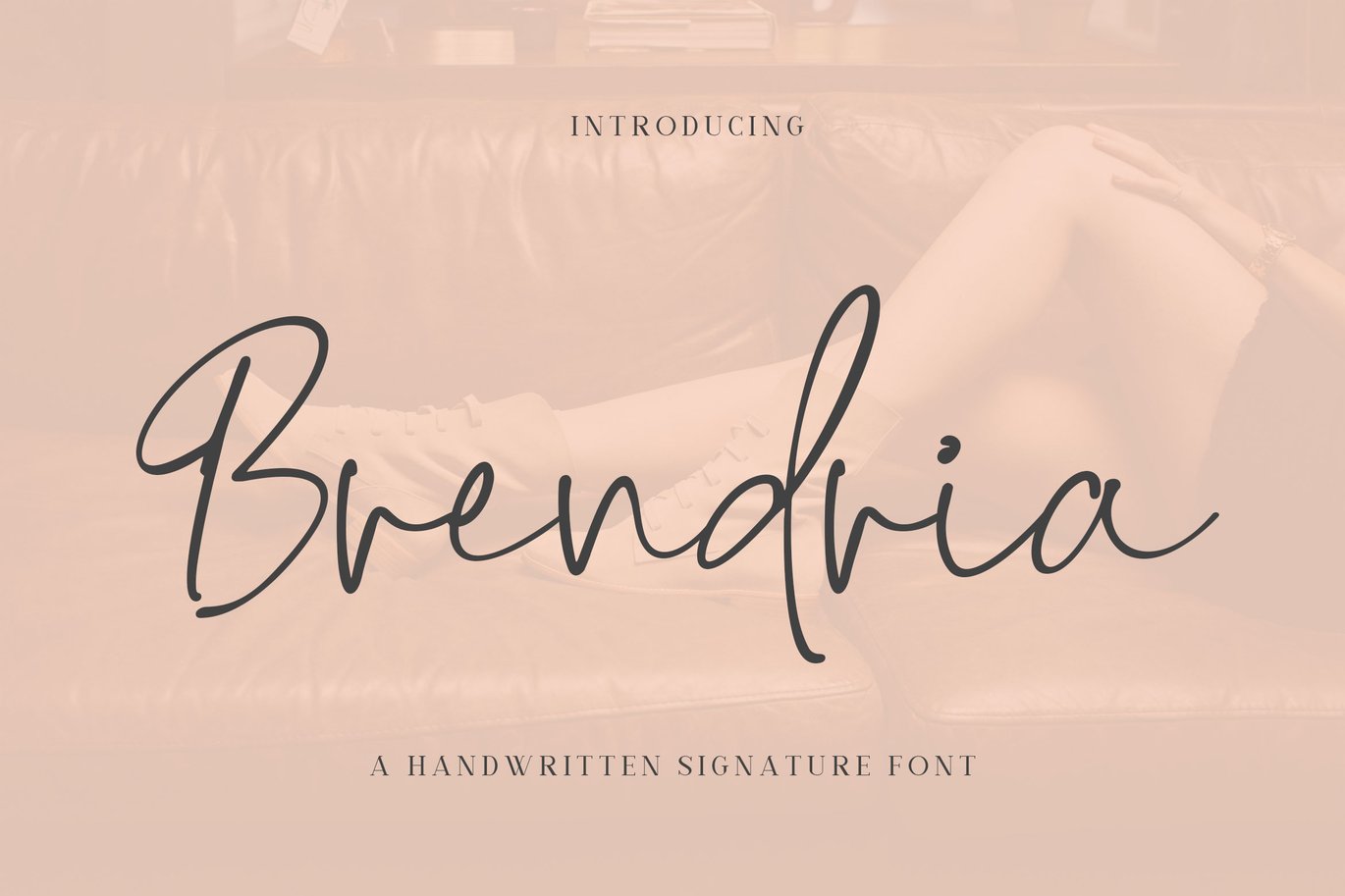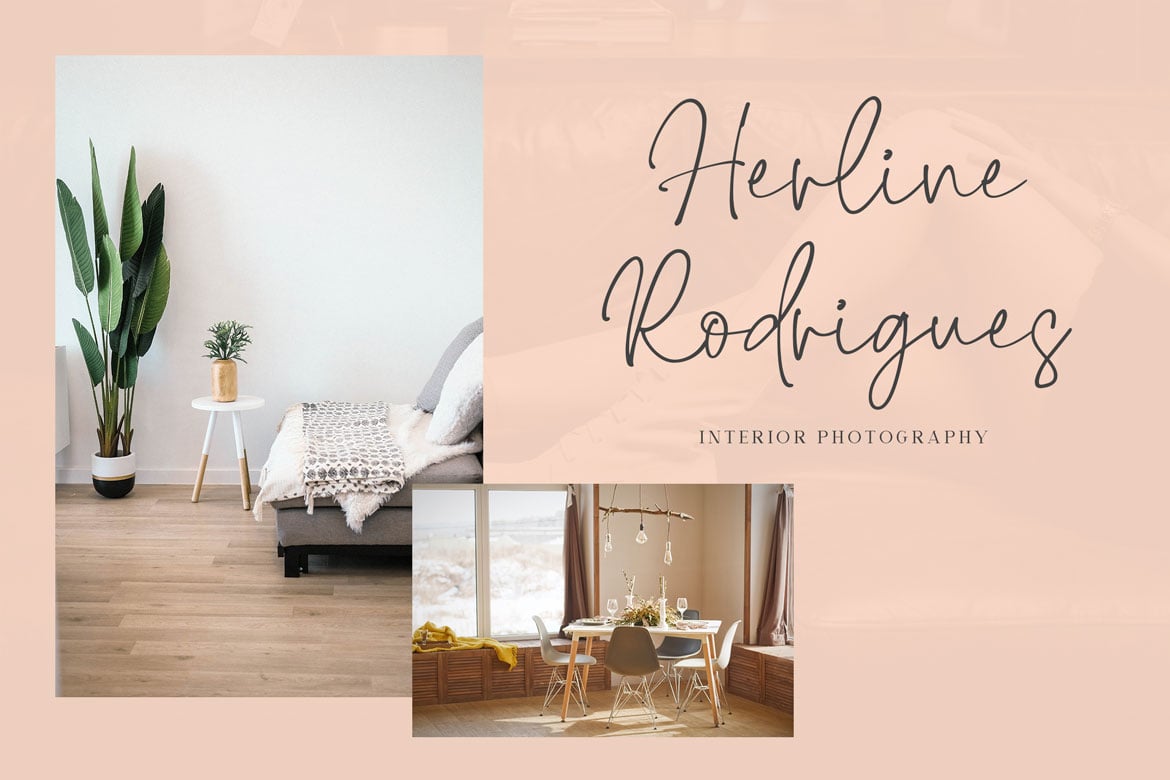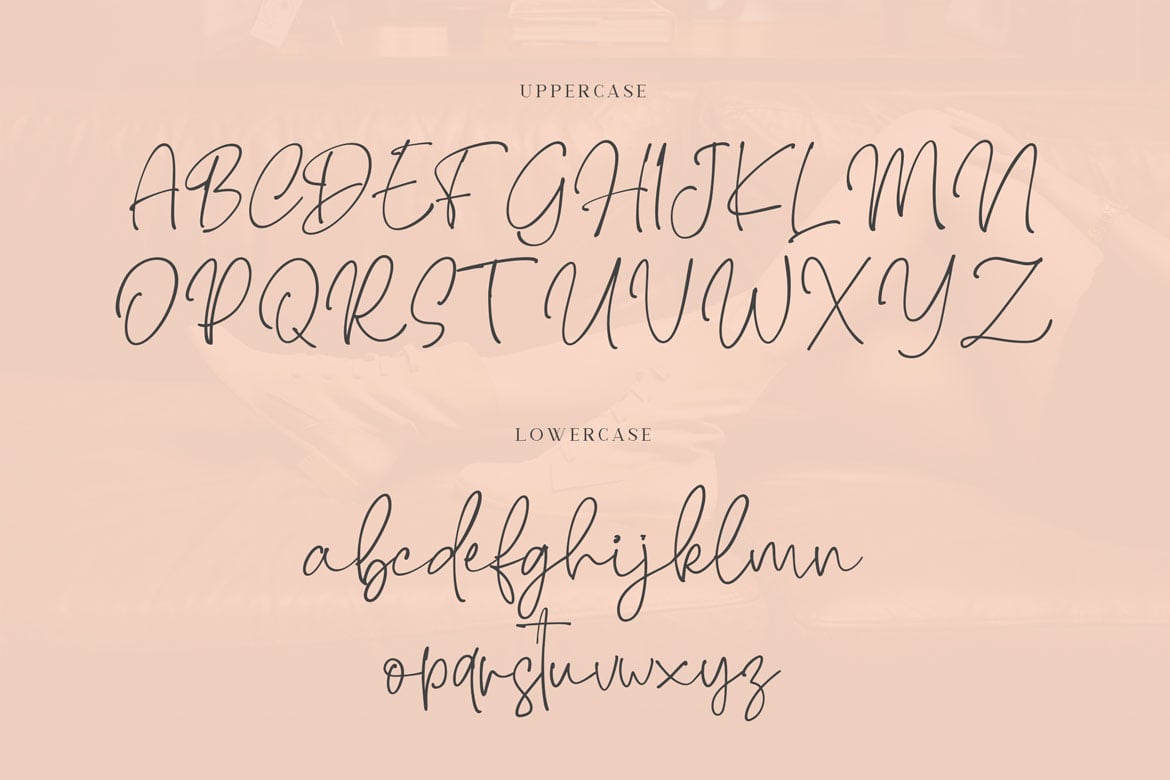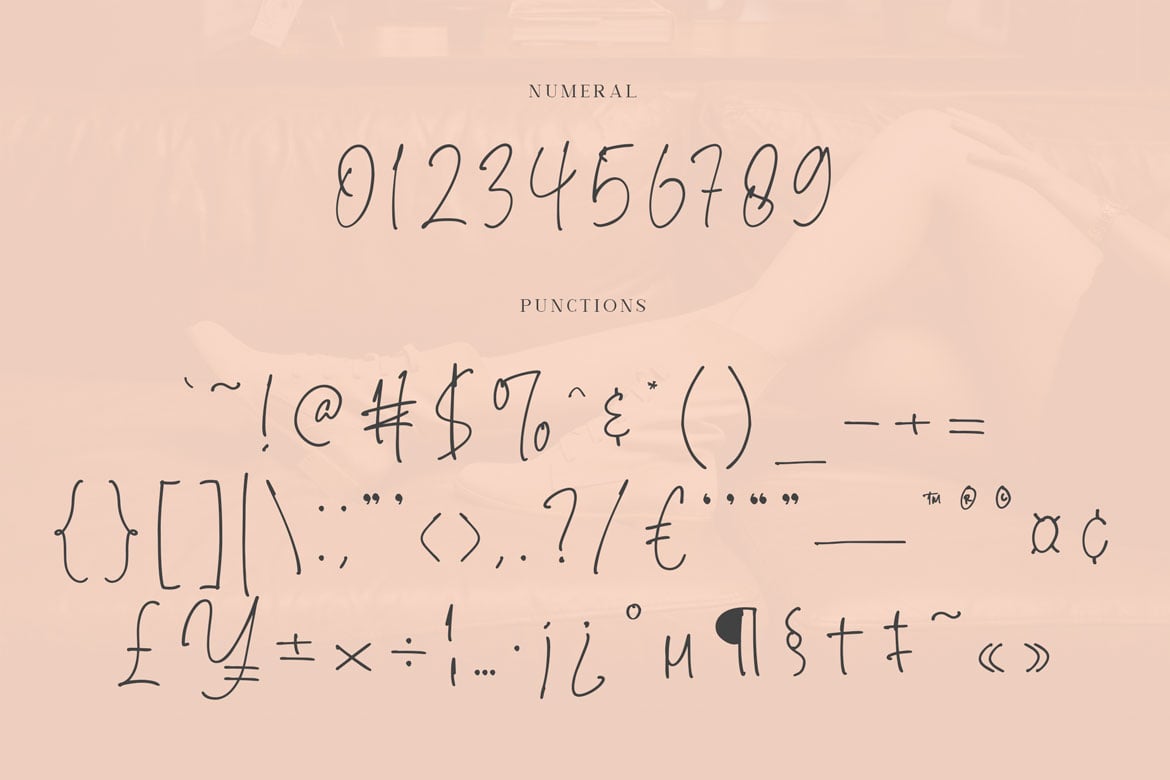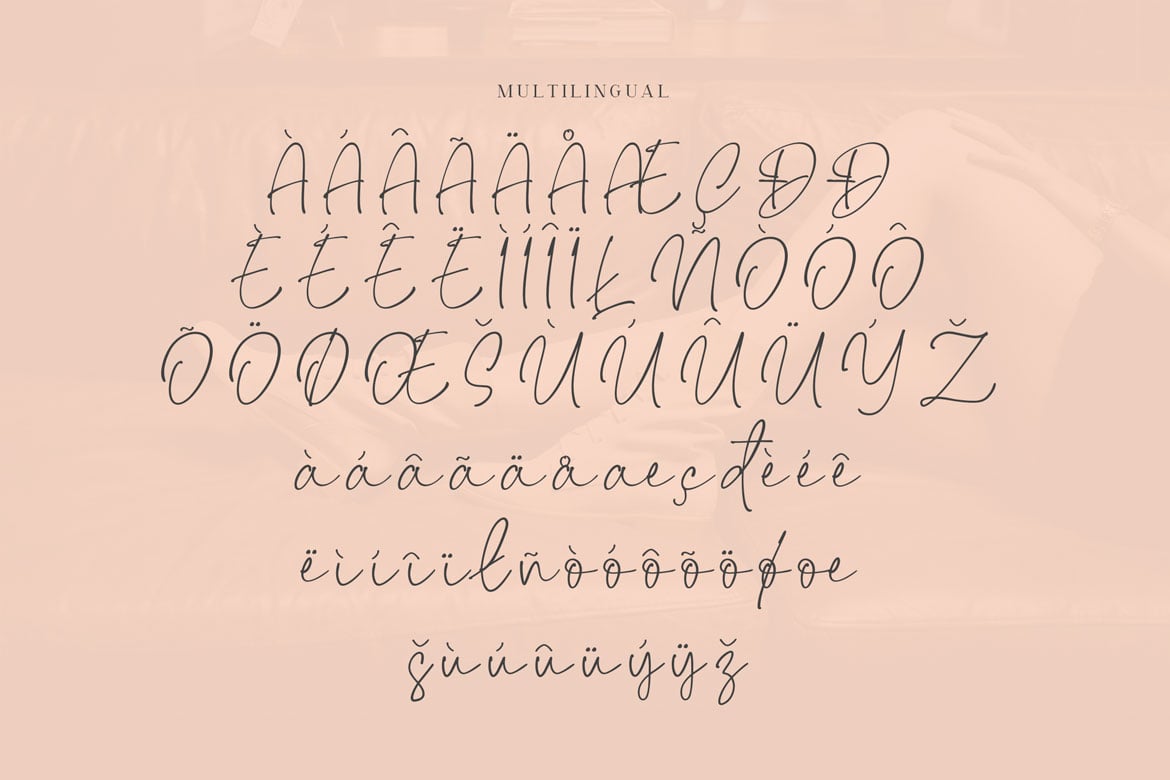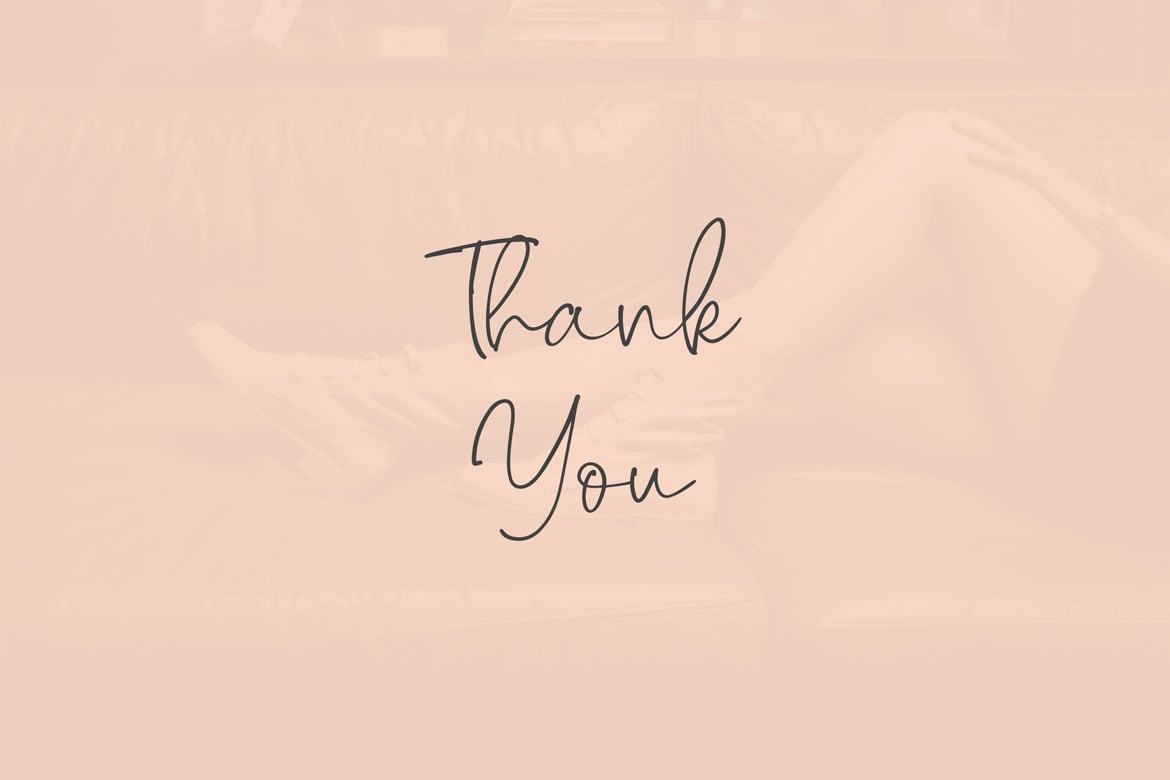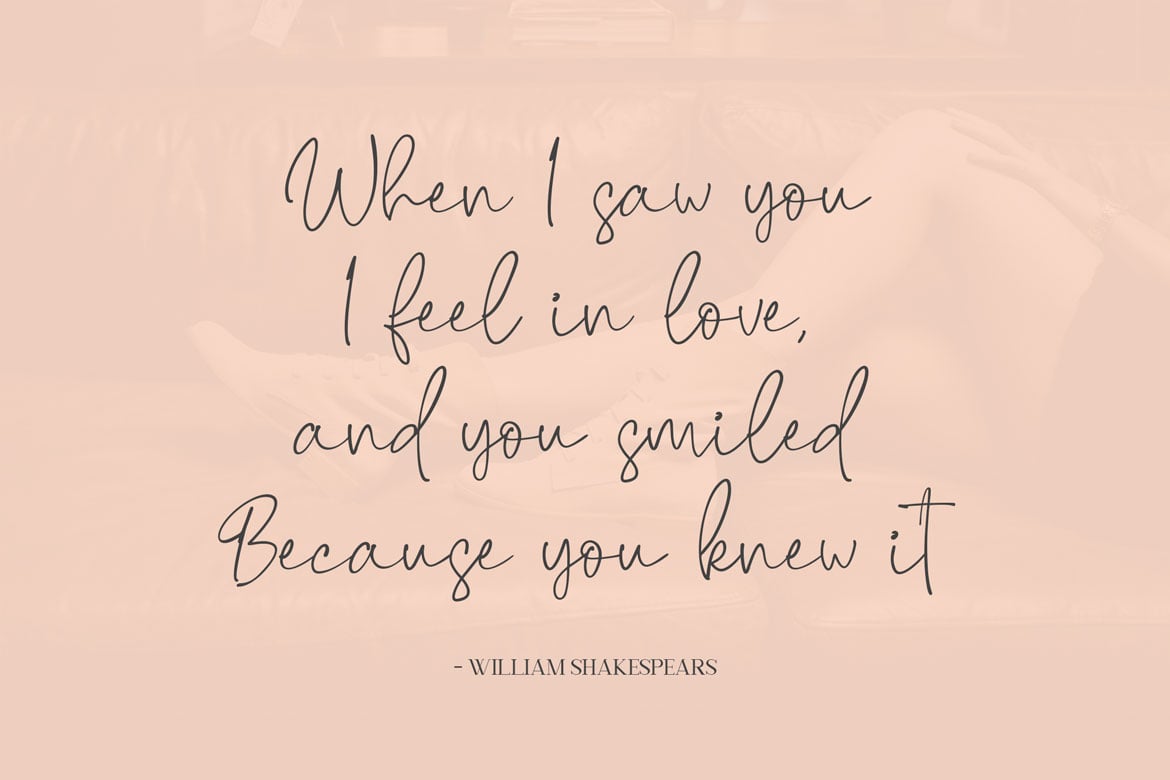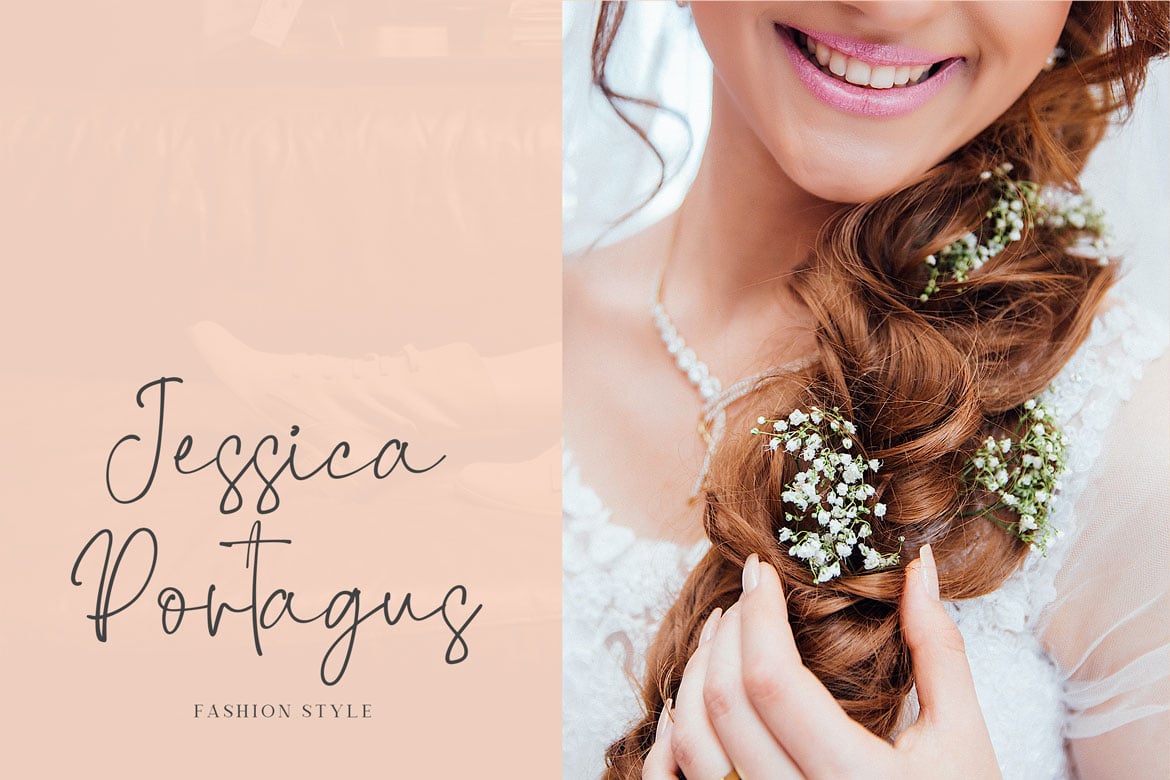
Brendria – Signature Font
Brendria Signature font. It has a elegant, classy look and beauty. It’s a great font for fashion,
apparel projects, signature, album cover, logo, branding, magazine, social media, & advertisements,
but also works great for other projects.
Highlight :
- Standard glyphs (Uppercase, Lowercase, Numeral & Punctions)
- Fonts include multilingual support for; ä ö ü Ä Ö Ü ß ¿ ¡